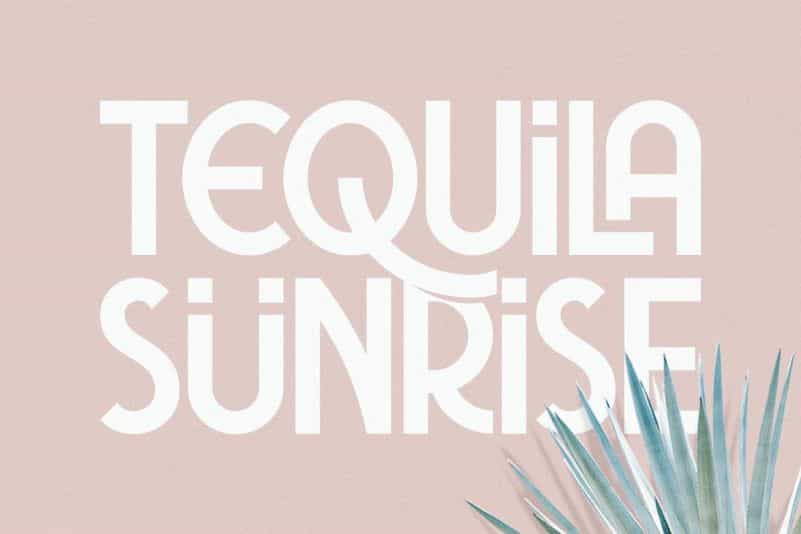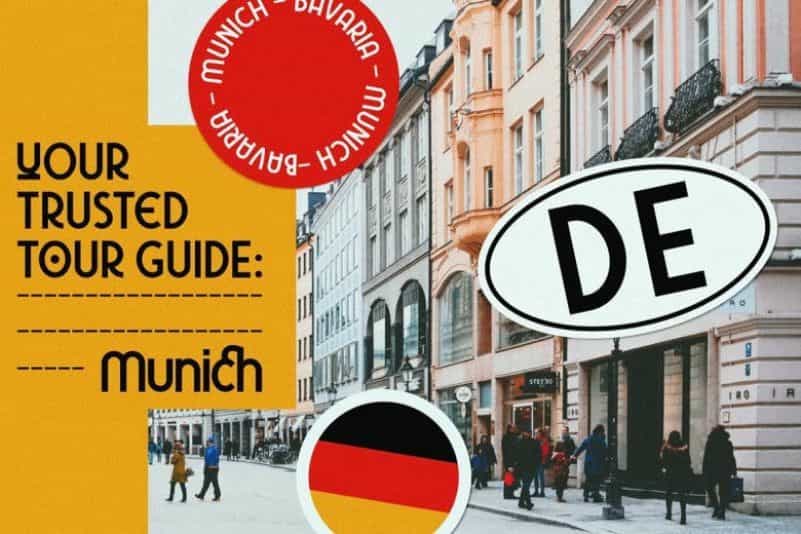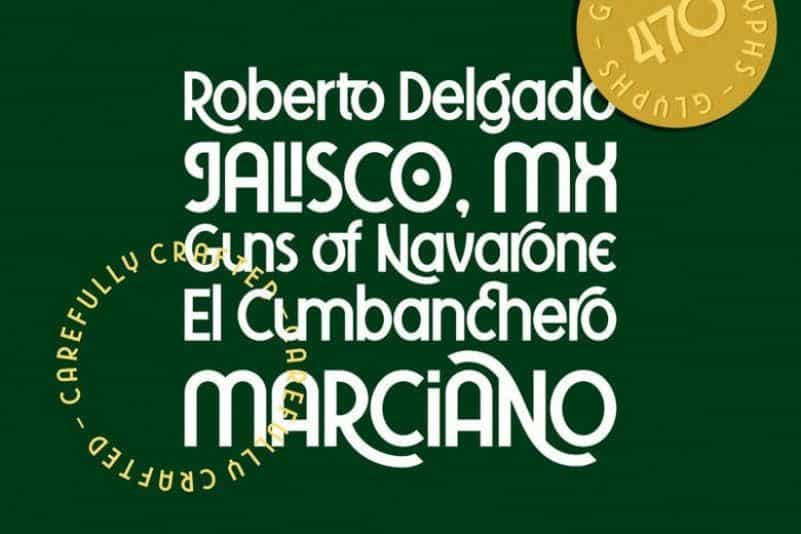
Discover Tawakkal Sans Font, part of the Sans Serif Display Graffiti collection—a versatile and unique font perfect for adding a personal touch to your projects. Download it for free and enjoy crafting designs with style, from invitations to social media posts. This font is available exclusively for personal use, giving you the freedom to create without limits. Unlock your creativity with Tawakkal Sans Font today!
Introducing Tawakkal Font. It is created and PPted by Twicolabs Fondation. This font is a combination of the modern and classical style, its neatness and irregular shapes stand for the future, while its elegant curve that imitates the old style typography.